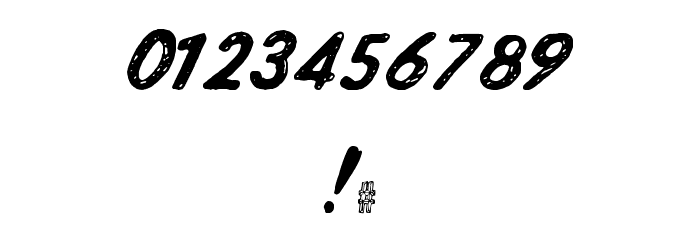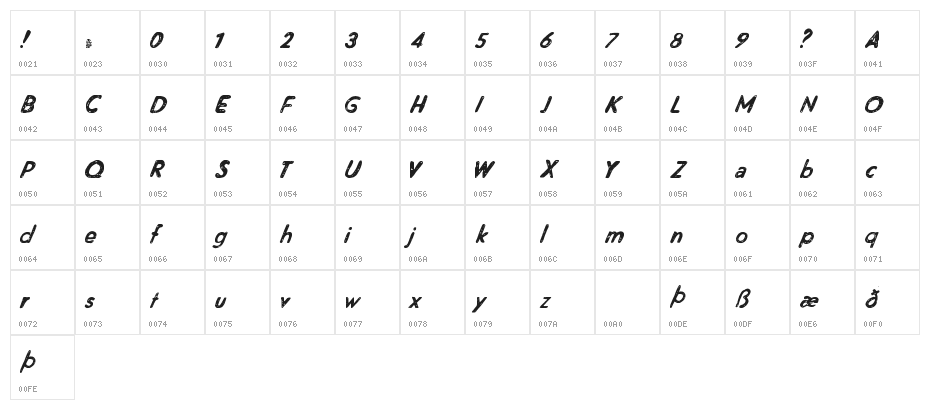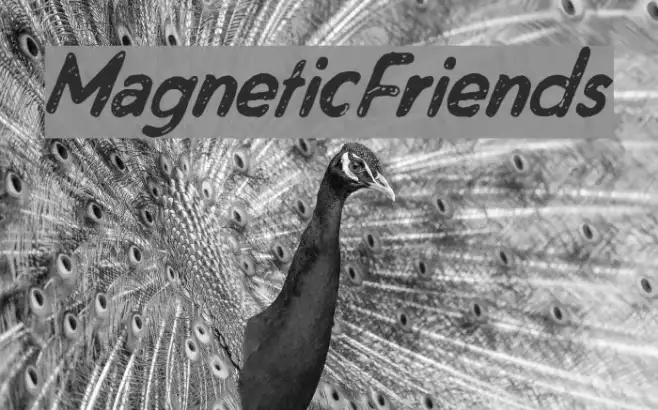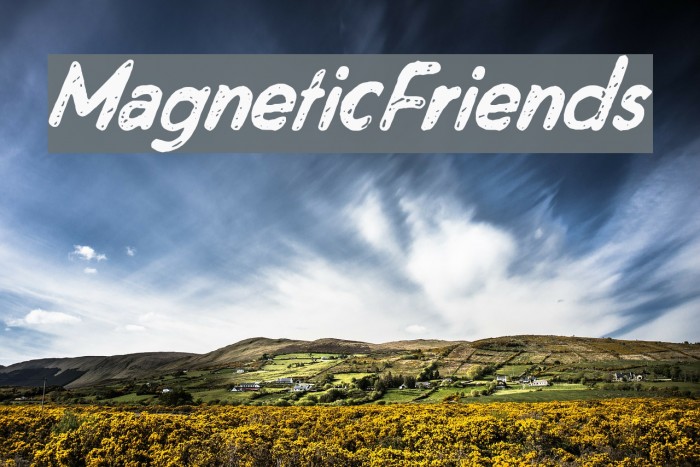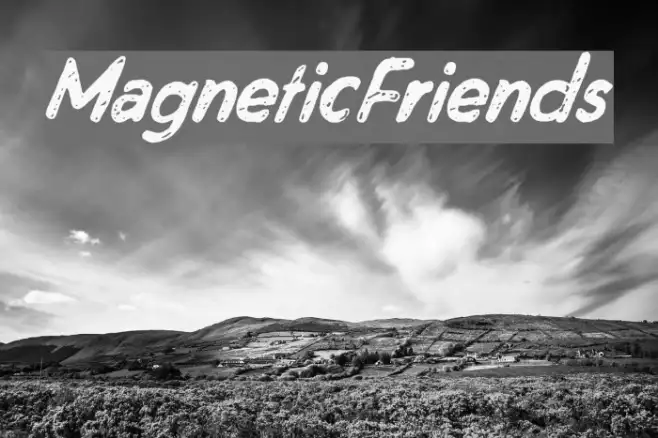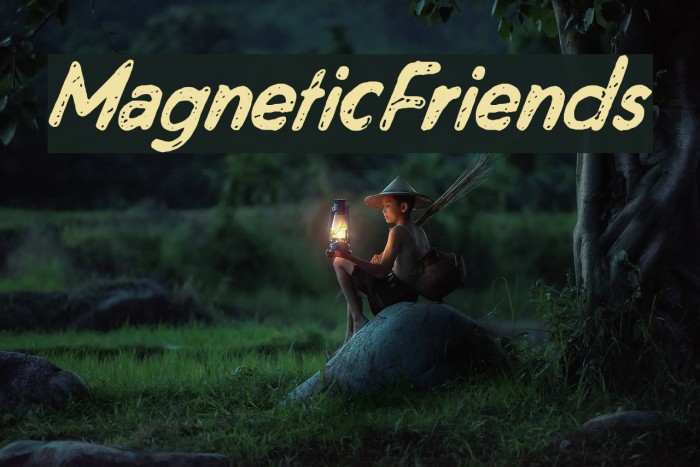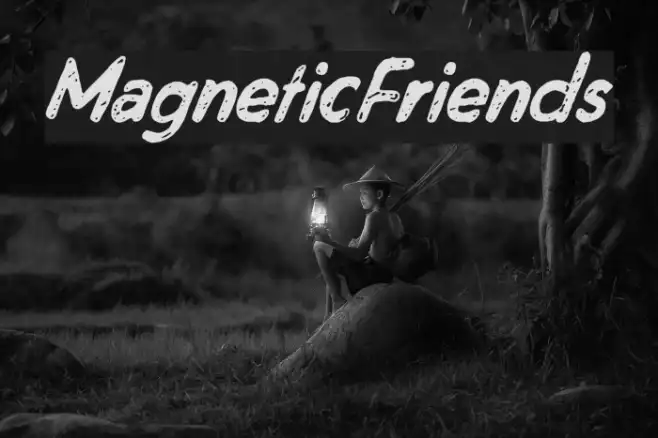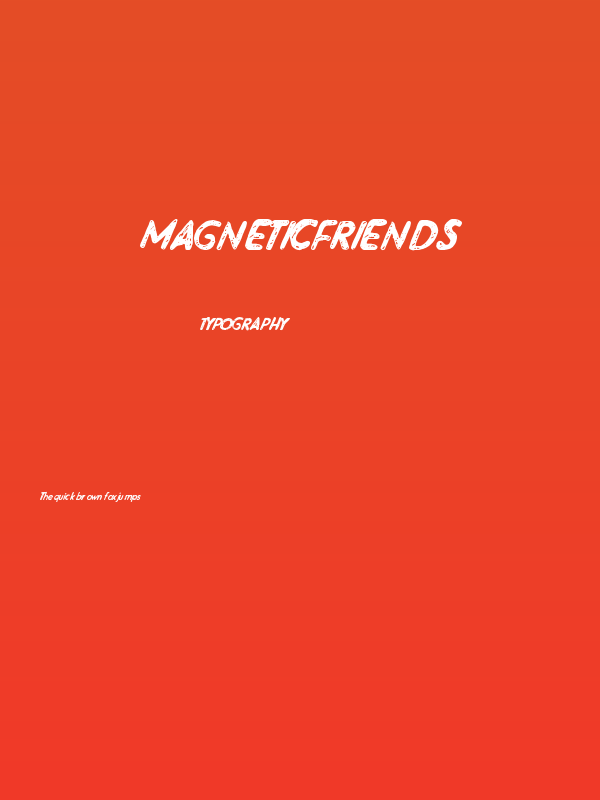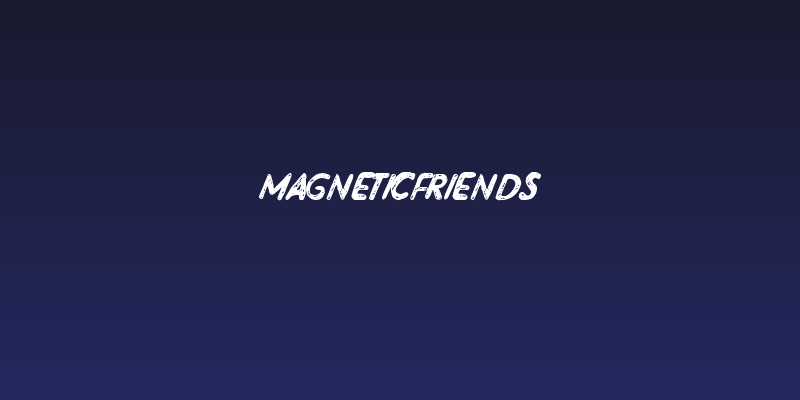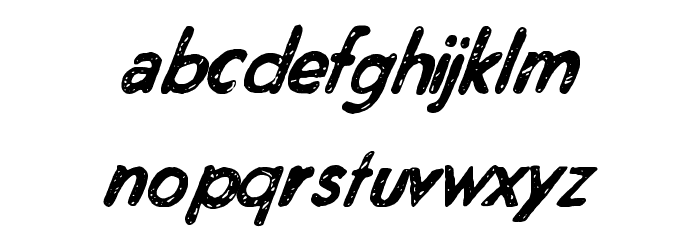
MagneticFriends Font
MagneticFriends Description
This font features a playful and dynamic style, characterized by its bold and slightly italicized letterforms. The letters are filled with a textured pattern that adds a sense of movement and energy. The overall appearance is casual and friendly, making it suitable for projects that require a fun and engaging look. The characters are well-spaced, ensuring readability while maintaining a lively aesthetic. The font includes a full set of uppercase and lowercase letters, numbers, and a selection of special characters, making it versatile for various design needs.
| Overall Style | Playful, Casual |
| Proposed Projects | Ideal for children's books, playful branding, party invitations, and casual posters. |